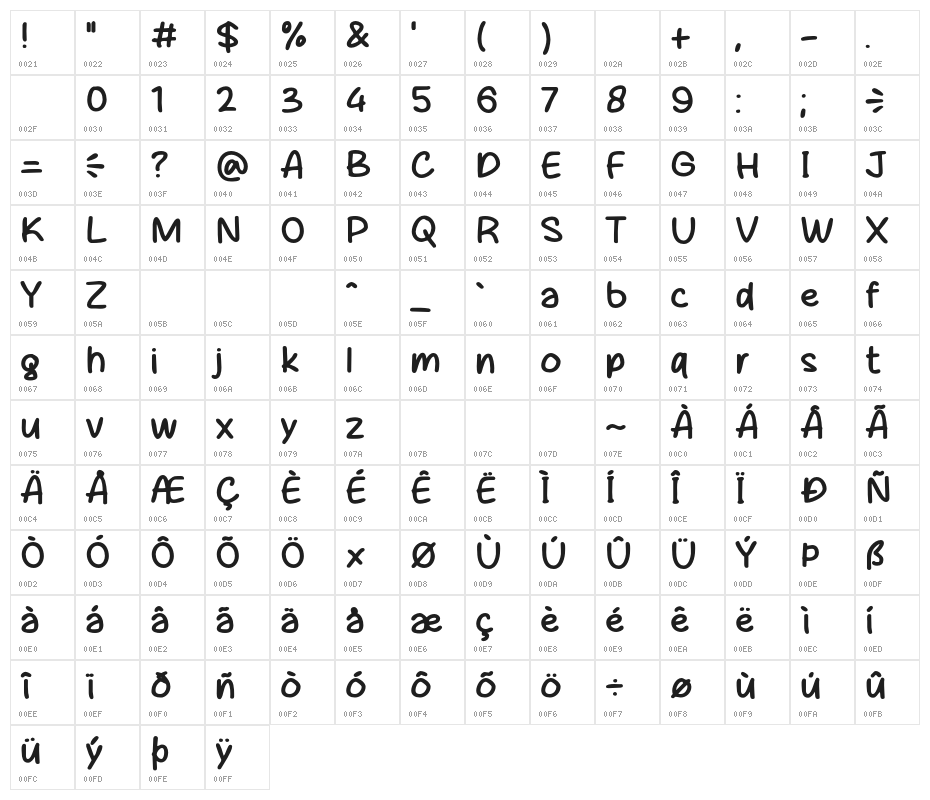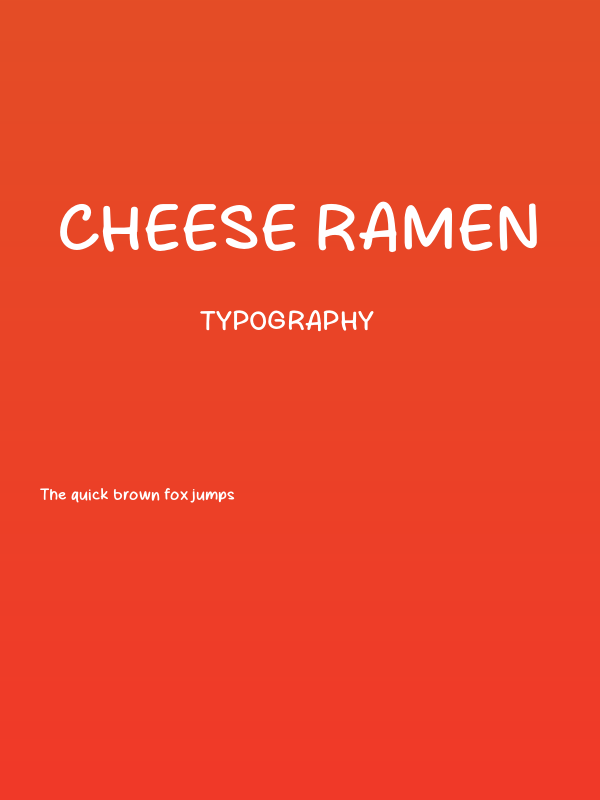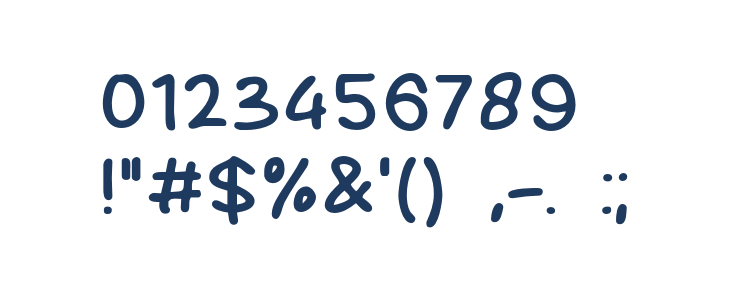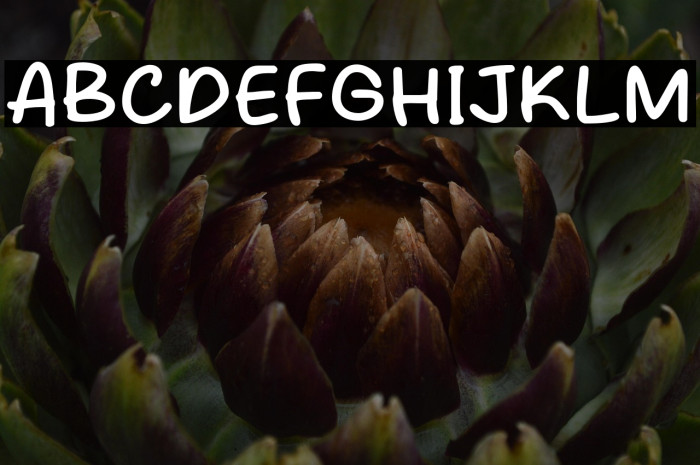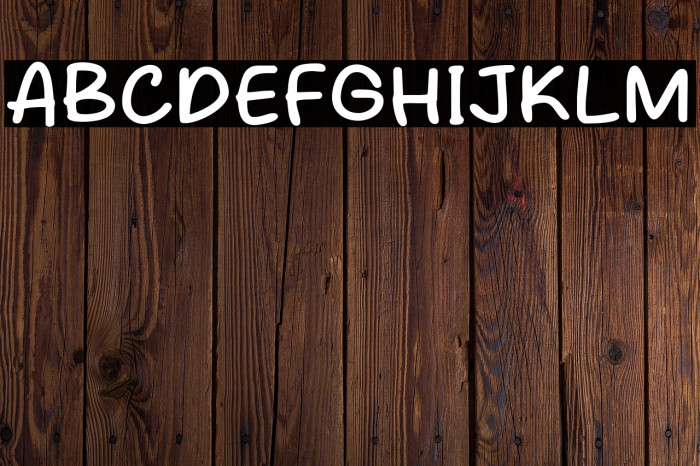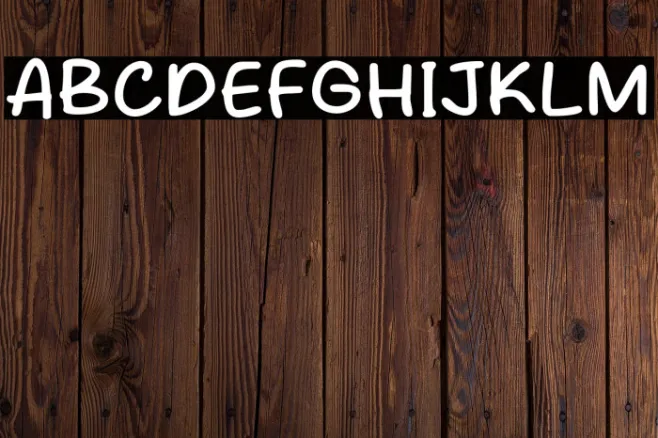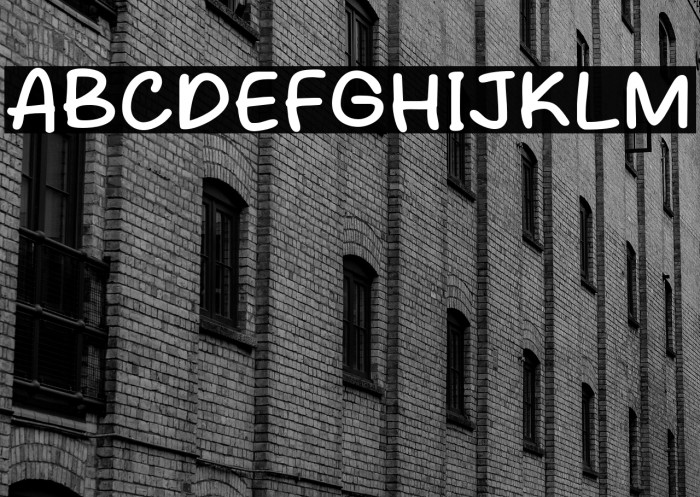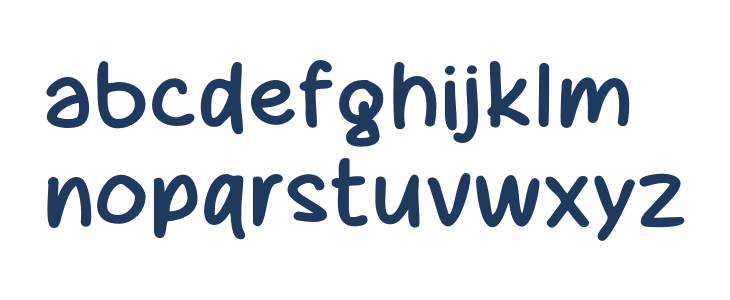
Cheese Ramen Font
Cheese Ramen Description
This playful and rounded font exudes a casual and friendly vibe, making it ideal for informal and fun projects. The letters are bold and slightly irregular, giving them a hand-drawn appearance that adds a personal touch. The characters are well-spaced, ensuring readability while maintaining a lively and energetic feel. The font includes a full set of uppercase and lowercase letters, numbers, and a variety of special characters, making it versatile for different design needs. Its unique style is perfect for projects that require a touch of whimsy and creativity.
| Proposed Projects | Ideal for children's books, playful branding, casual invitations, and creative posters. |